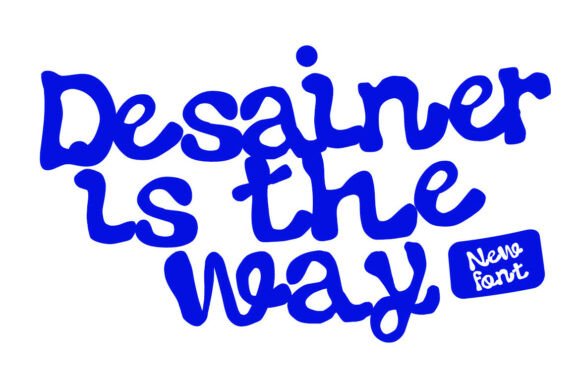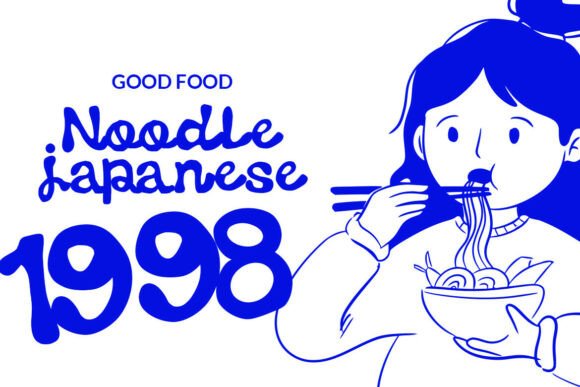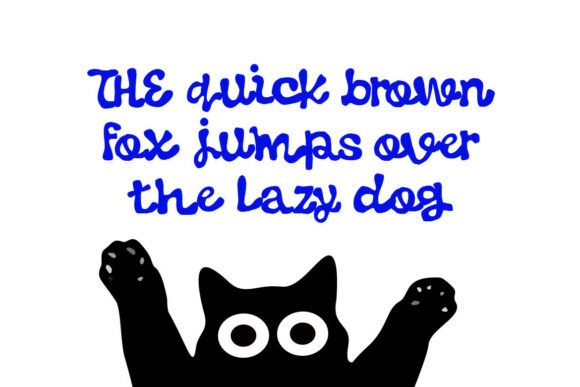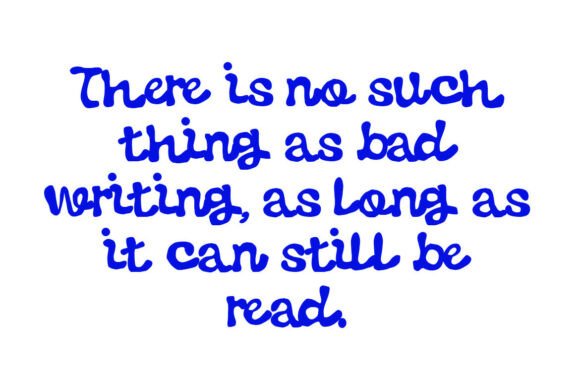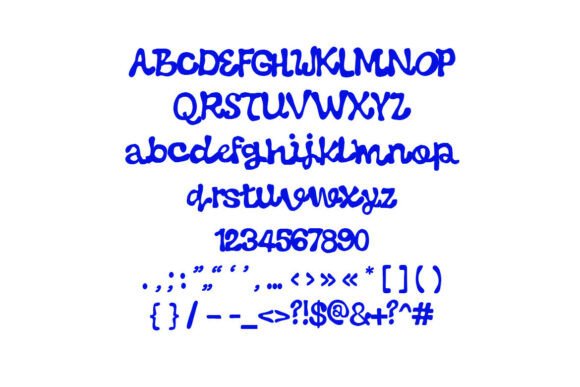
Introduction to Pawo Font
This typeface is characterized by its bold, irregular, and hand-drawn aesthetic.
The strokes are thick and fluid, with rounded terminals that contribute to a soft and friendly appearance The letterforms exhibit a high degree of variation in stroke width, giving it an organic, almost hand-painted quality.
Key Features of Pawo Font